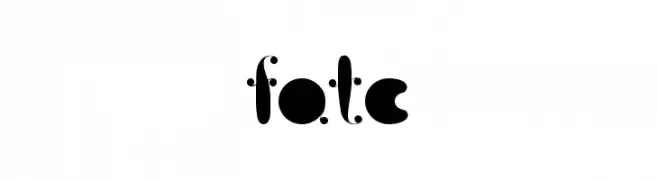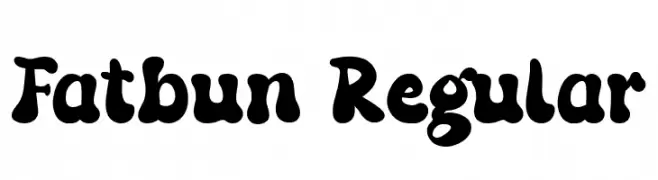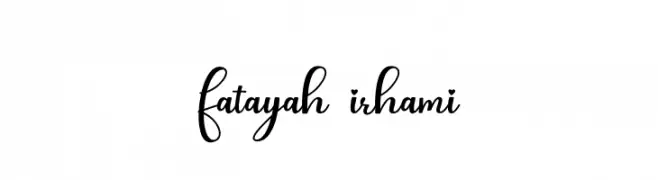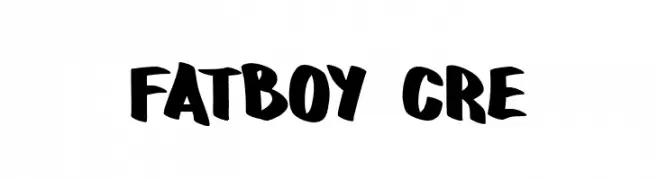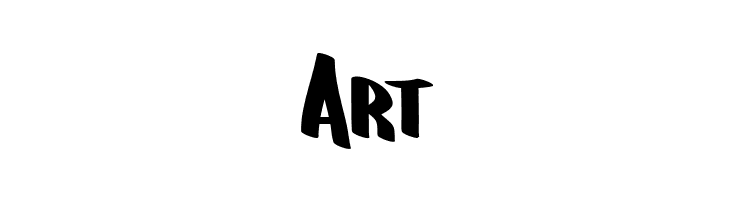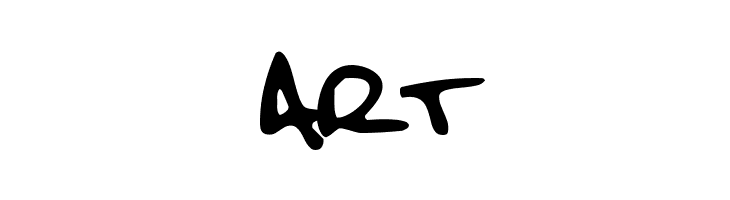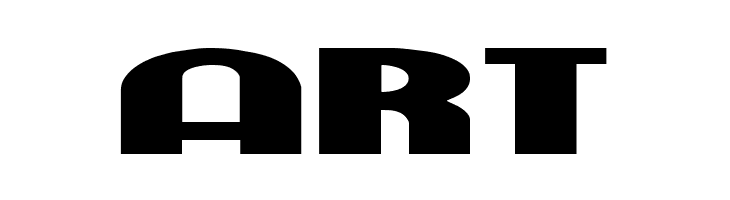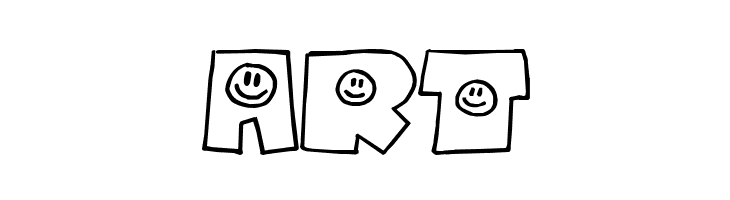
A bold, angular font with a futuristic and aggressive design.
A bold, rugged font with a distressed, grungy appearance.
An elegant, flowing script font with bold, cursive strokes.
A bold, playful, hand-drawn font with a friendly and energetic style.
A bold, playful handwritten font with a graffiti-like style.
A playful, smiley-adorned decorative font perfect for fun and engaging designs.
A playful, bold font with rounded, bubbly characters.
A bold, playful font with rounded shapes and decorative curls.